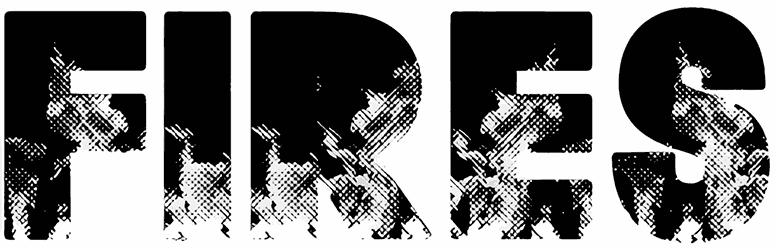
Fires Font
If you’re looking for a sense of excitement and warmth in your designs, Fires ticks both boxes. This fire font has a state of fire lava inside each letter, which can create a lot of heat in your designs, even in the absence of small letters and numbers.
Also, the fading state created in the letters is very similar to eroded fonts, which makes it suitable for use in controversial headlines and unconventional designs.
Four layered fonts!